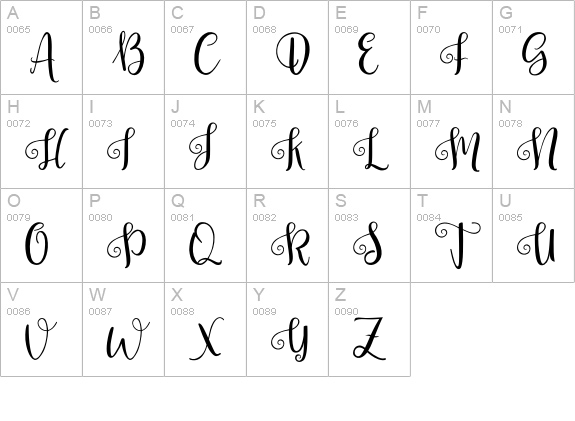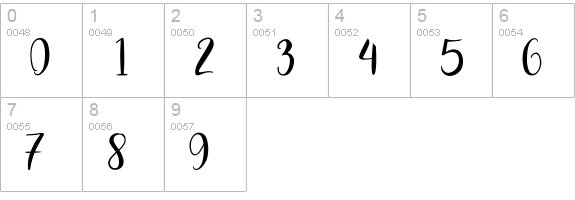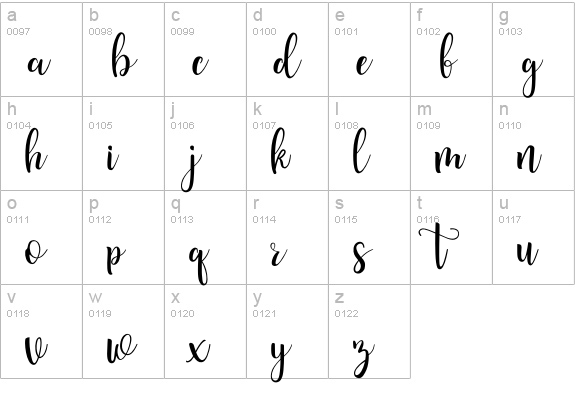
Pretty Queen Font Details
Pretty Queen is a free for personal use font in the Script > Calligraphy category, designed by Fana Studio. It has been downloaded 593 times and is available for Windows, Mac and Linux.
Introducing Pretty Queen font, a stunning and elegant typeface that exudes grace and sophistication. With its delicate and flowing curves, this font is perfect for adding a touch of beauty to any project. The Pretty Queen font is versatile and can be used for a variety of purposes, from invitations to branding to packaging.